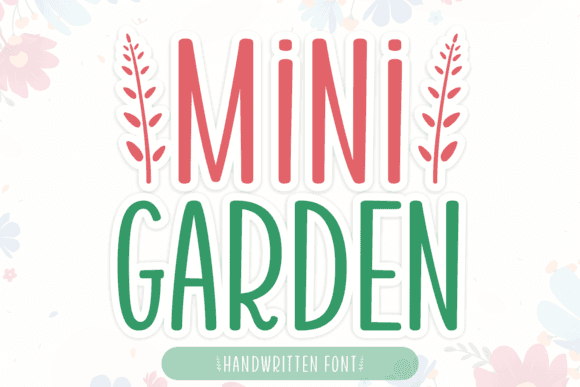
Mini Garden Font for Cricut, Silhouette and Printable Designs
Mini Garden is a decorative FONT crafted specifically for creative cutting and print projects. Its whimsical, garden-inspired lettering style brings a fresh and organic aesthetic to any craft. Designed with clean, optimized paths, it's cut-friendly and print-ready from the start.
This typeface is ideal for both digital and physical crafting workflows. Whether you're working with Cricut, Silhouette, or any design software, Mini Garden Font delivers standout results in signage, decor, stationery, and garden-themed personalization.
- Custom plant labels and garden signs
- Printable invitations, menus, and planners
- T-shirts, tote bags, and kitchen towels
- Wall art, decals, and home decor
- Logo elements and product packaging
- Charming garden-inspired aesthetic
- Cut-friendly curves for vinyl and HTV
- Perfect for themed branding and craft designs
A: Yes, the font features smooth lines for easy cutting, even on small-scale projects.